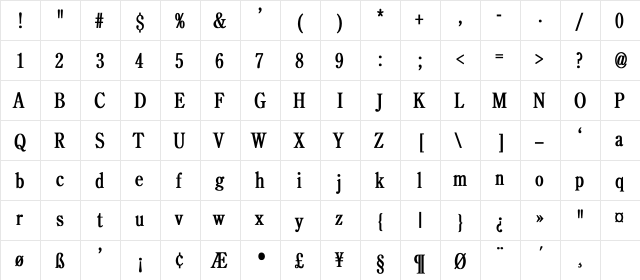
Bucolic Modern Conden Regular
Design Context for Bucolic Modern Conden Typeface
Bucolic Modern Conden takes a measured approach to typography — its balanced proportions and neutral character make it a reliable workhorse for both digital and print work. The condensed width makes it efficient for tight spaces without sacrificing legibility.